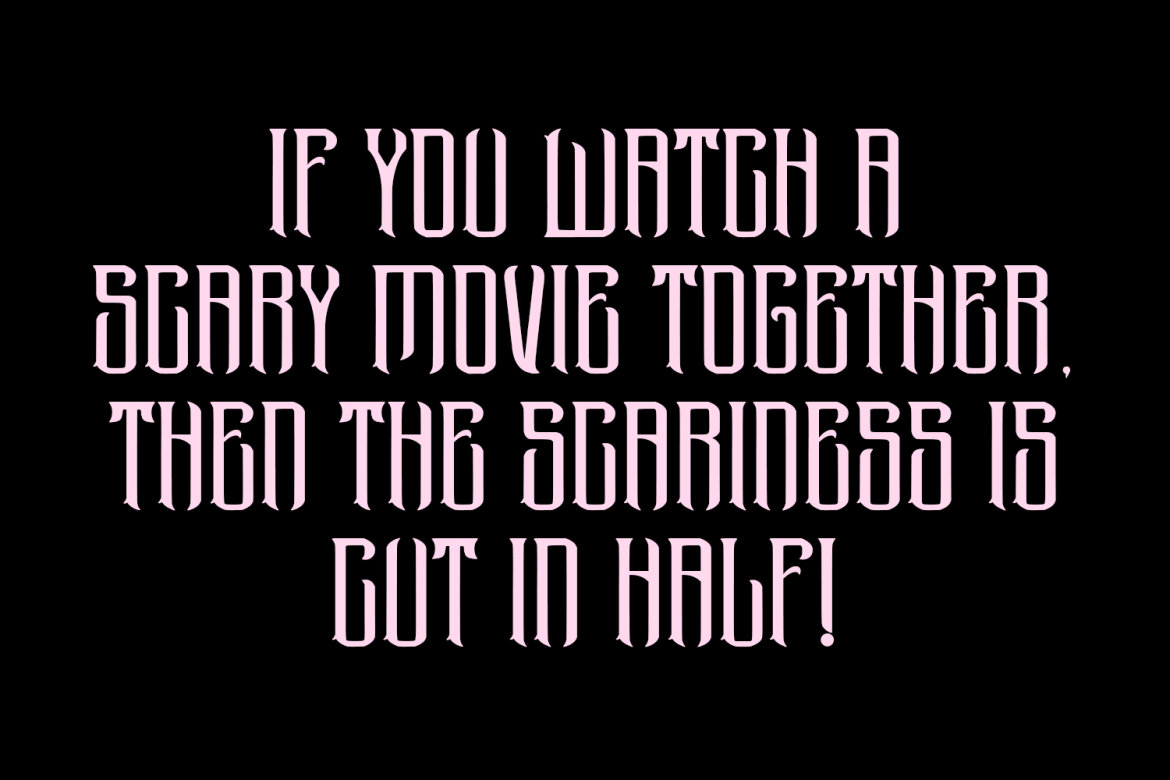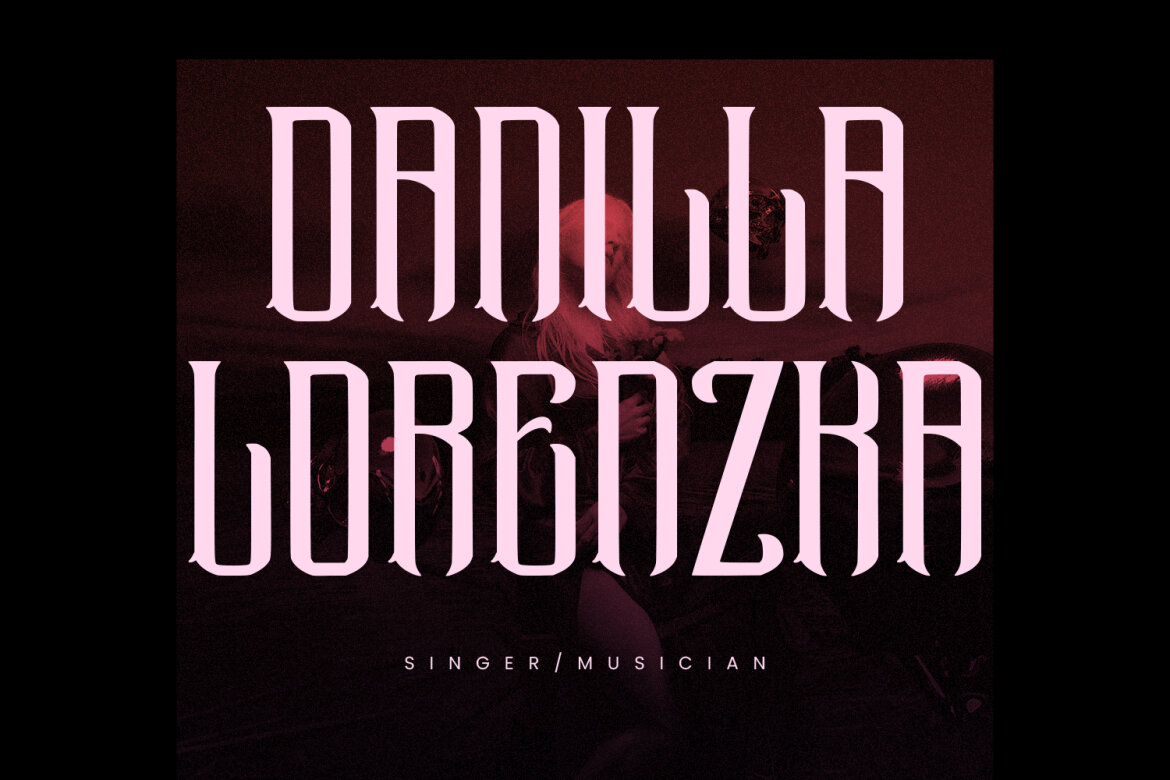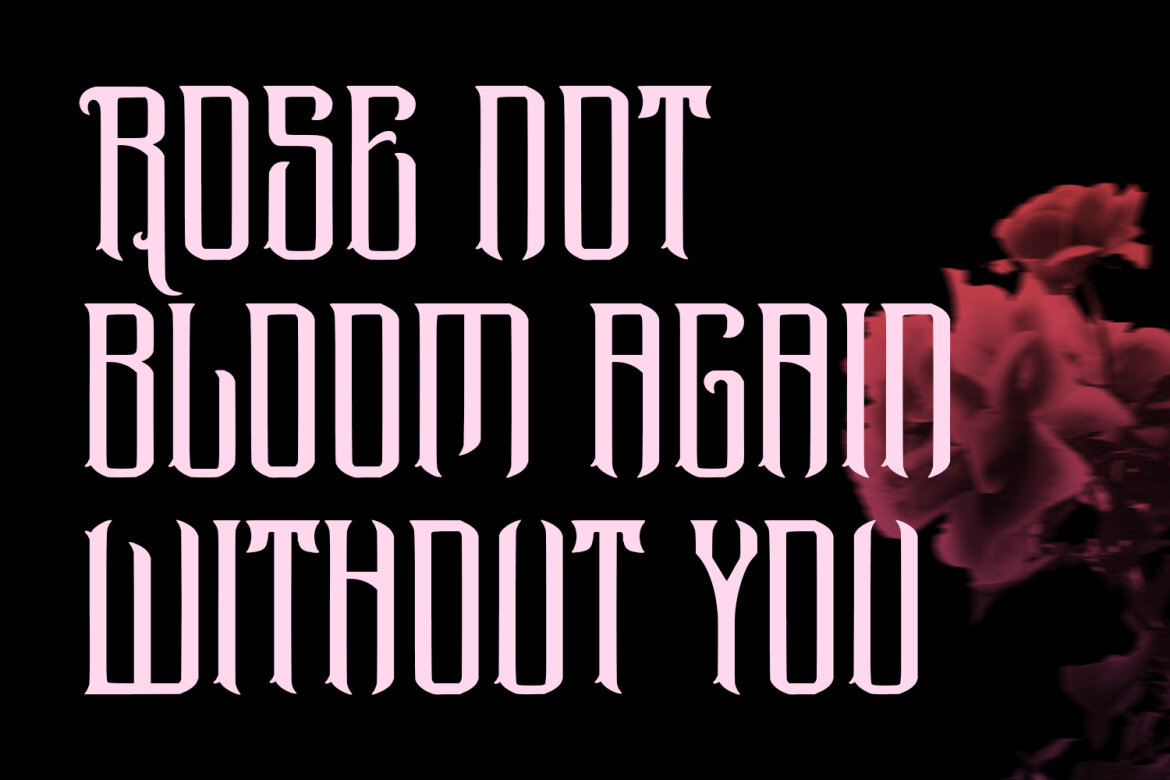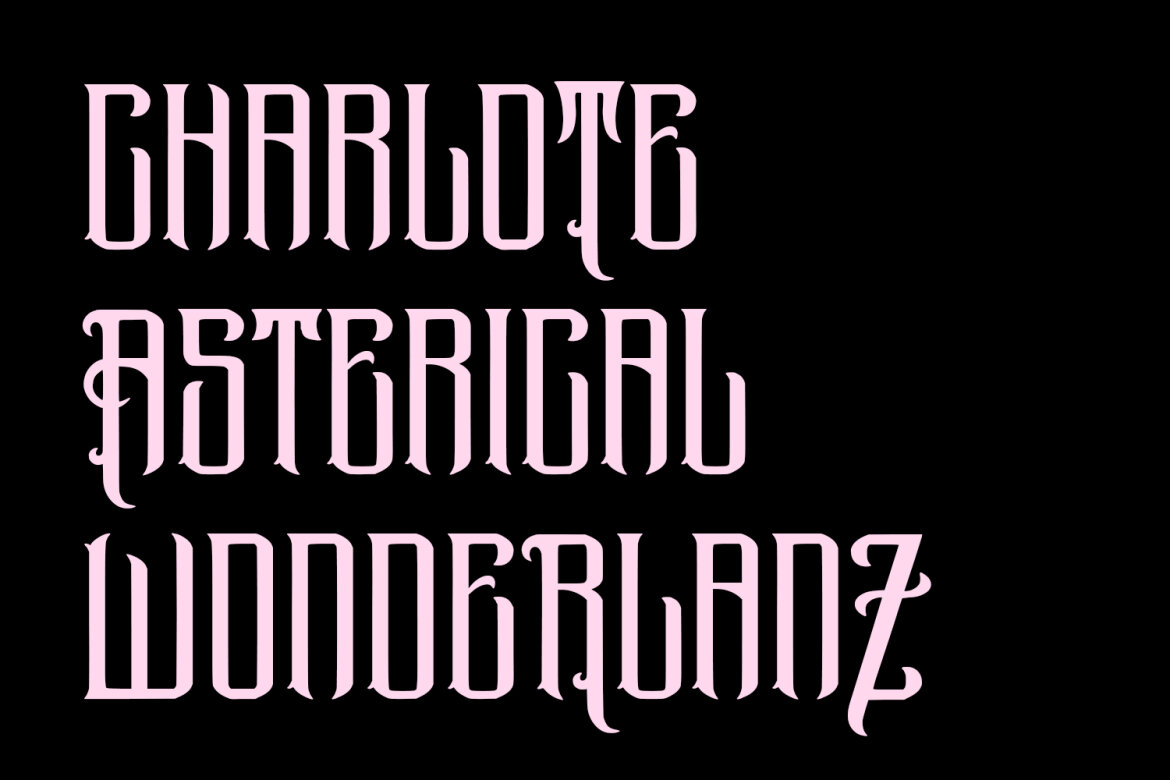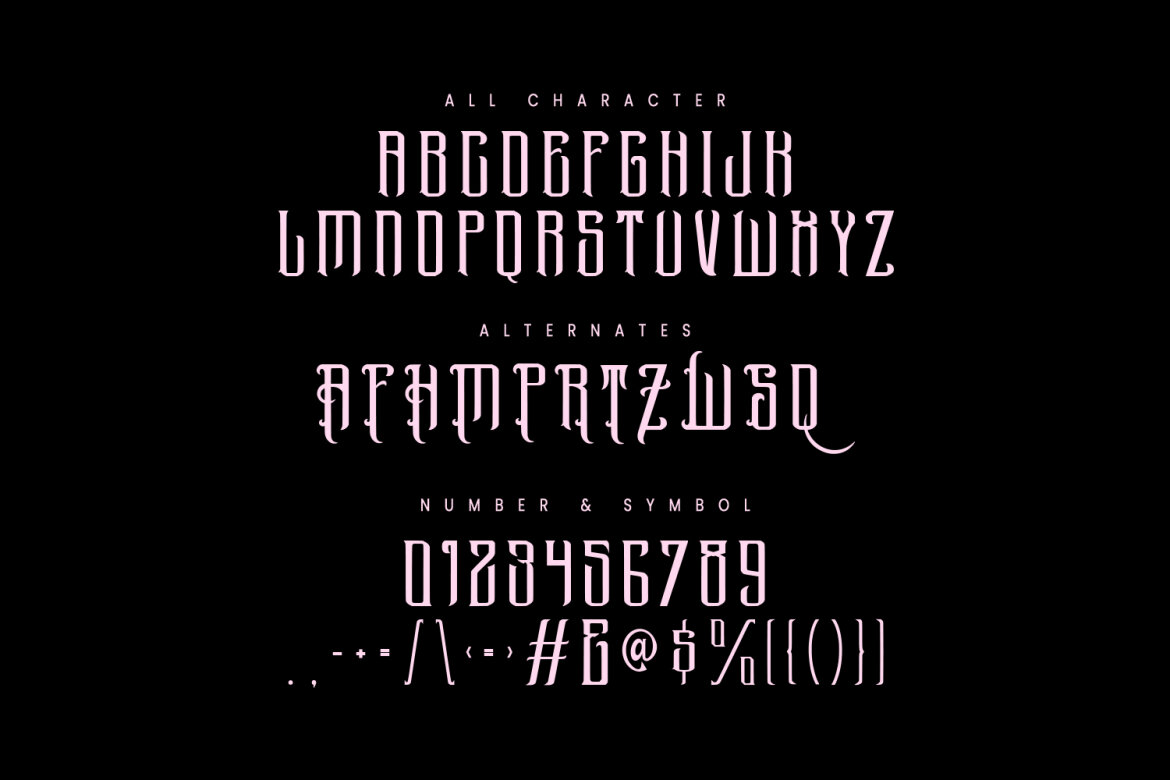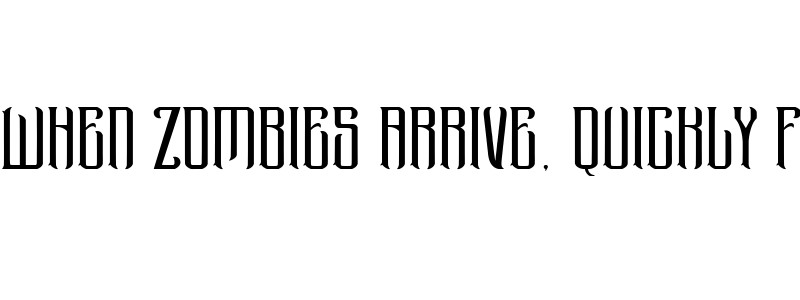
Thorkov Blackletter FREE Font
Thorkov
Thorkov Blackletter Decorative Display Font. With bold tall and sharp stroke, fun character. To give you an extra creative work. Thorkov font support multilingual language. This font is good for logo design, Social media, Movie Titles, Books Titles, a short text even a long text letter and good for your secondary text font with sans or serif. Make a stunning work with Thorkov font.